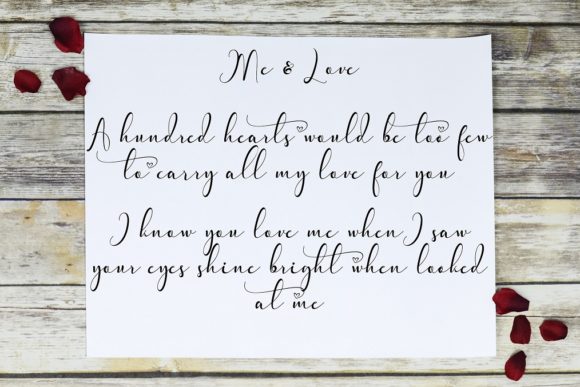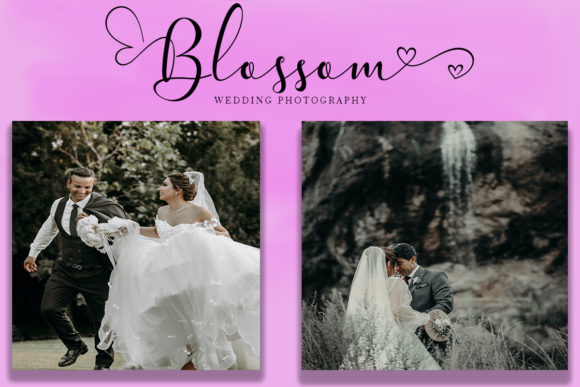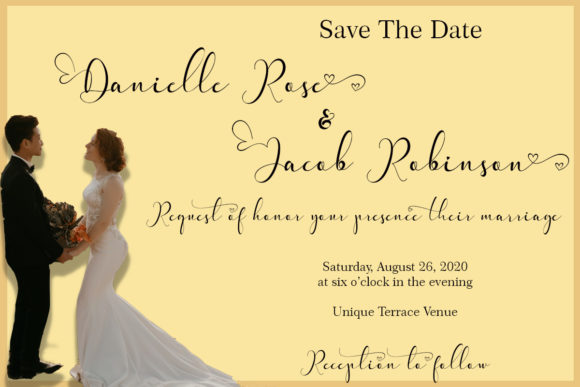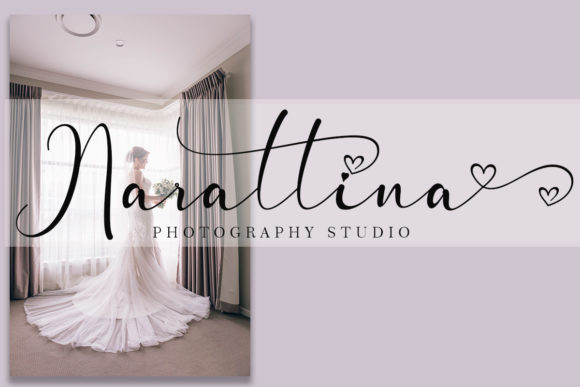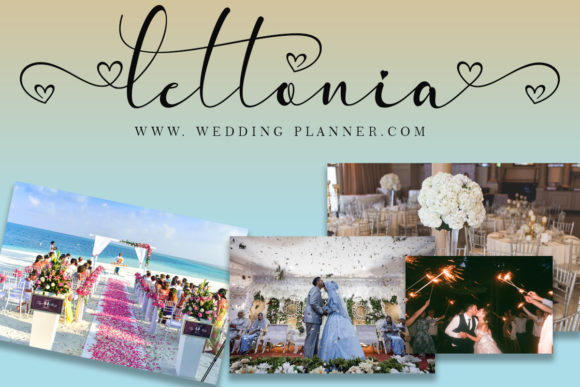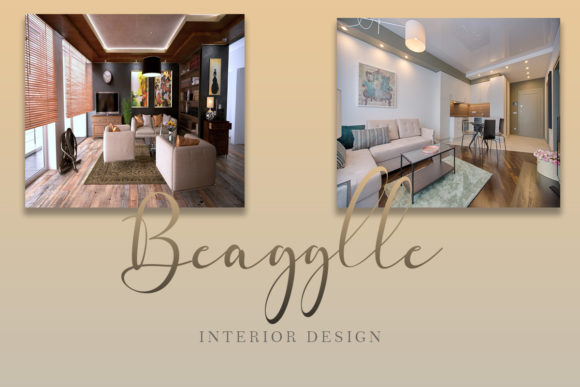
Introduction to Pretty Willie Font
As you sit at your desk, surrounded by scattered papers, half-finished designs, and a faint smell of coffee, the spark of creativity strikes. You’ve got a vision – a beautiful, elegant design that’s going to wow your audience. And that’s when you remember: the right font can make all the difference. Enter Pretty Willie Font, the perfect design resource to elevate your creative project.
With its flowing, handwritten style and gorgeous glyphs, Pretty Willie Font is a high-quality addition to any design arsenal. Whether you’re working on a branding project or creating a stunning visual identity, this font is sure to bring your ideas to life. And the best part? It’s PUA encoded, making it easy to access all the swashes and alternates you need. Plus, with a transparent background, you can seamlessly integrate it into your design. Download Pretty Willie Font for free and take your design projects to the next level.
Key Features of Pretty Willie Font
- Unique, hand-drawn style with transparent background for versatility
- Font size: 16,000+ glyphs, including Latin, Cyrillic, and Greek alphabets
- Supports a wide range of languages, making it a valuable asset for multilingual projects
Honest Review: Pretty Willie Font
As a designer, I’m always on the lookout for high-quality design resources that can elevate my creative projects. The Pretty Willie Font is one such resource that caught my attention. I decided to give it a try and share my honest review with you.
- ✨ High-quality design: The Pretty Willie Font has a beautiful, elegant design that’s perfect for creating visually appealing graphics and text.
- ✨ Transparent background: The font comes with a transparent background, making it easy to use on any background image or color.
- ⚠️ Limited character set: The font has a limited character set, which may not be suitable for longer texts or complex projects.
- ⚠️ Not suitable for body text: Due to its elegant design, the Pretty Willie Font is best suited for headings and titles rather than body text.
Overall, I’m impressed with the Pretty Willie Font. While it may have some limitations, its high-quality design and free download make it an excellent choice for designers working on creative projects. If you’re looking for a unique and elegant font, the Pretty Willie Font is definitely worth checking out.
Pretty Willie Font is a high-quality design resource that can be used in a variety of creative projects, including logos, branding materials, and social media graphics. It’s a free download with a transparent background, making it easy to use in any design project.